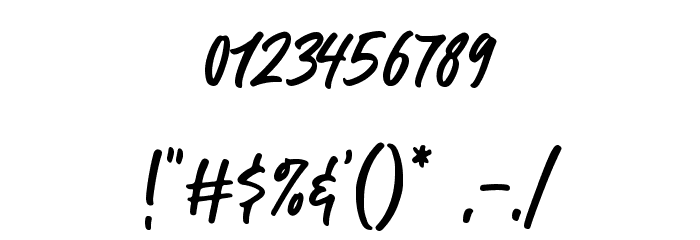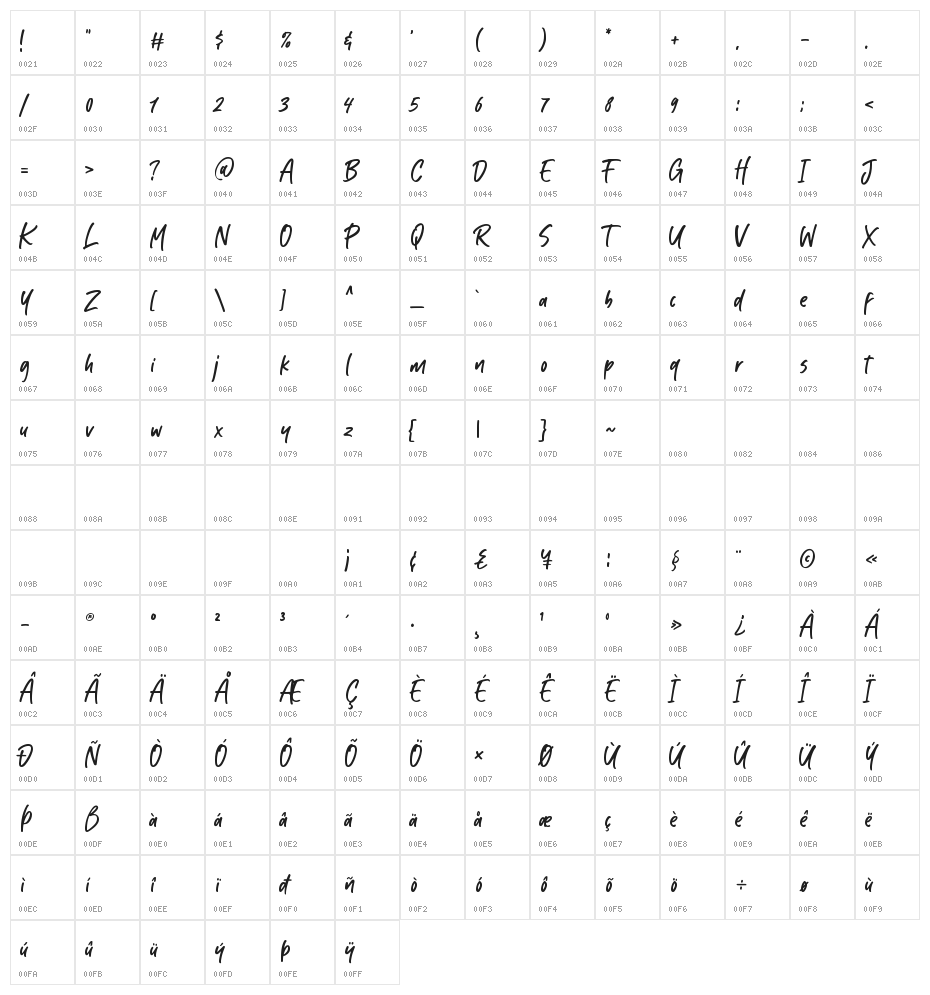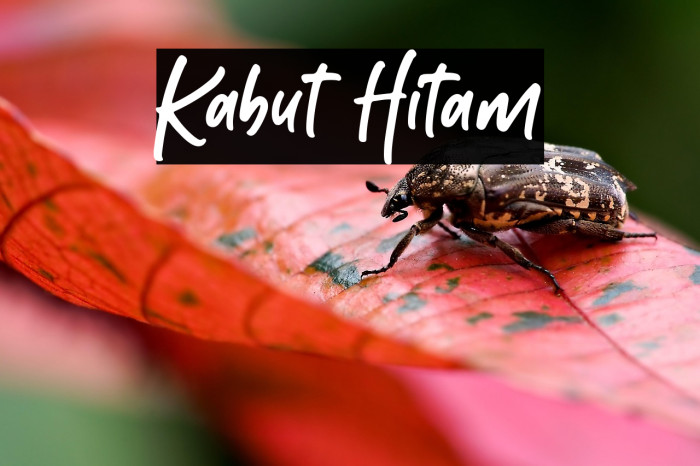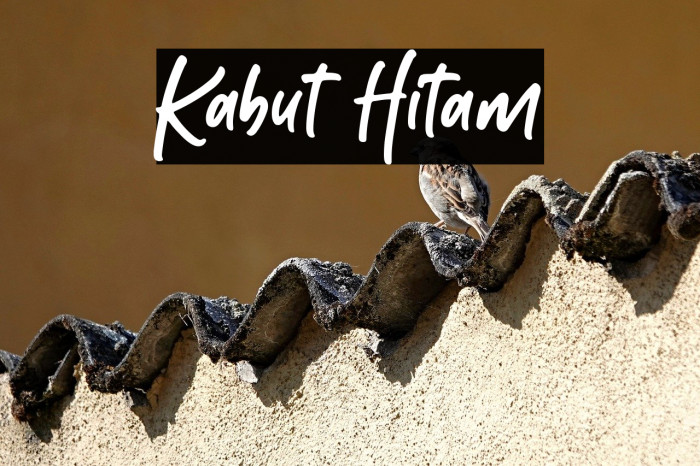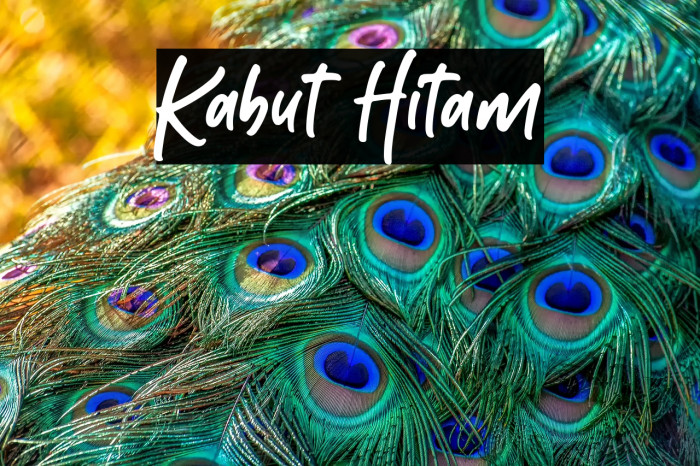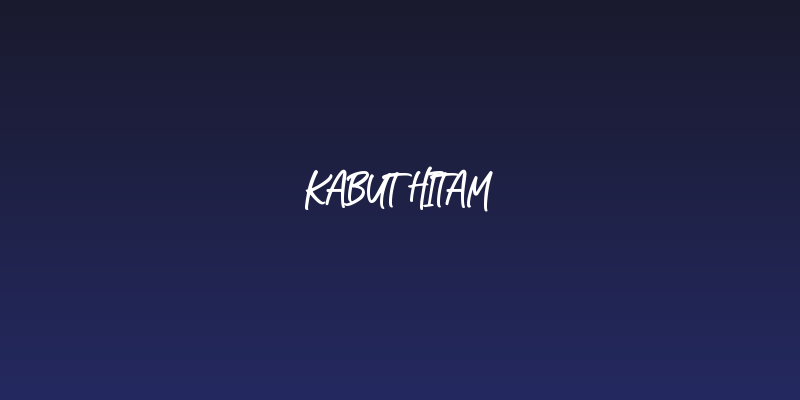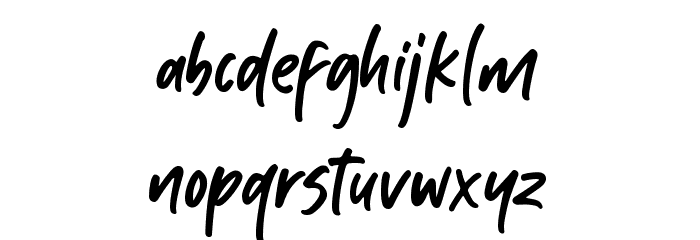
Kabut Hitam Font
Kabut Hitam Description
This font features a dynamic and energetic handwritten style, characterized by its fluid and natural strokes. The letters are slightly slanted, giving a sense of movement and spontaneity. The uppercase and lowercase letters maintain a consistent flow, with some letters featuring unique loops and curves that add personality. The numbers and special characters are crafted with the same lively touch, ensuring a cohesive look across all elements. This font exudes a casual yet stylish vibe, making it suitable for projects that require a personal and approachable feel.
| Use Case | Logos, Invitations, Social Media Graphics |
| Proposed Projects | Ideal for branding, social media graphics, invitations, and personal projects that require a friendly and approachable touch. |